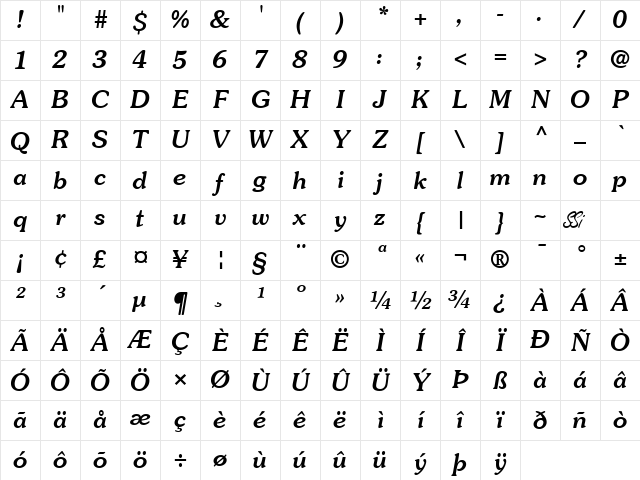
Souvenir SSi Italic
Complete Souvenir SSi Italic glyph index. Displaying only characters natively supported by Souvenir SSi Italic font.
Design Context for Souvenir SSi
Souvenir SSi is a composed and adaptable typeface that performs quietly and consistently across a wide range of design contexts. The slanted form adds forward momentum and visual energy.
Pro Tip: Use Souvenir SSi for emphasis, pull quotes, and subheadings where its slanted energy can add rhythm to the layout.